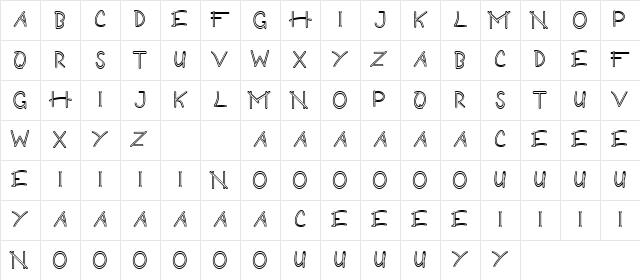
Guritno Demo Outline
Design Context for Guritno Demo Typeface
Guritno Demo brings ornamental detail and strong personality to headlines and identities, where visual impact matters more than quiet functionality.
Font Pairing: Pair with a clean neutral sans-serif for body copy to let Guritno Demo's character lead without overwhelming the composition.
Pro Tip: Treat Guritno Demo as the centrepiece of your typographic hierarchy. One strong heading set in a decorative face can carry an entire layout.